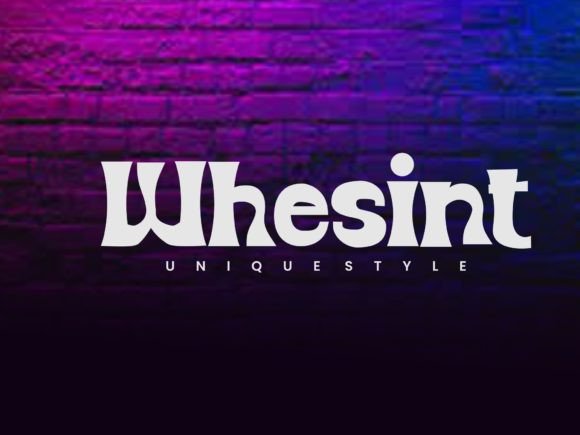
**Unleash the Future with Whesint: The Font Designed for the Digital Realm**
In an era where visual aesthetics reign supreme, your brand's voice reverberates through every design element, and your typography is no exception. Introducing 'Whesint'—a visionary display font that transcends the boundaries of conventional serif fonts.
**1. A Fusion of Futurism and Sophistication:**
Whesint is a carefully crafted masterpiece that harmonizes the sleekness of contemporary design with the timeless appeal of traditional elegance. Its sharp angles and geometric details evoke a sense of modernity, propelling your designs into the future. Yet, the classic serifs, reminiscent of long-standing traditions, lend an air of sophistication that elevates your message with a touch of timelessness.
**2. The Perfect Canvas for Your Modern Expressions:**
Whether you're a creative agency seeking to leave an indelible mark, a tech-savvy designer pushing boundaries, or simply an individual with a flair for captivating visuals, Whesint is your font of choice. Its versatility extends across spheres, making it ideal for modern branding, tech design, and any medium that demands a futuristic yet refined aesthetic.
**3. Beyond Visual Appeal, a Storytelling Ally:**
Whesint is more than just a collection of aesthetically pleasing characters; it's a powerful storytelling tool that breathes life into your words. Through its distinctive letterforms, Whesint weaves tales of innovation, progress, and the fusion of tradition with the future. Its design captures the essence of your brand's journey, compelling audiences to delve deeper into your narrative.
**4. A Statement of Daring and Uniqueness:**
In a world saturated with generic fonts, Whesint stands out as a beacon of individuality. Its unique character set breaks the mold of conventional typography, allowing you to make a statement that resonates with your audience. Embrace Whesint and let your brand shine with an identity that is both striking and unforgettable.